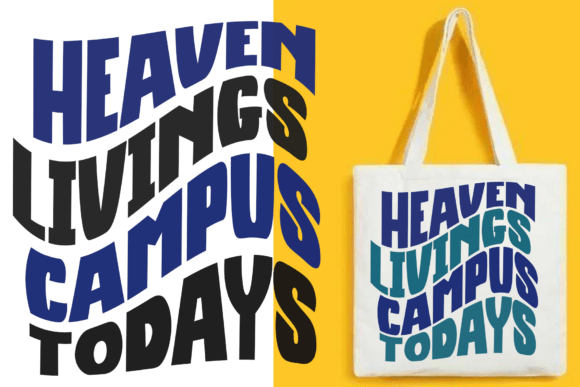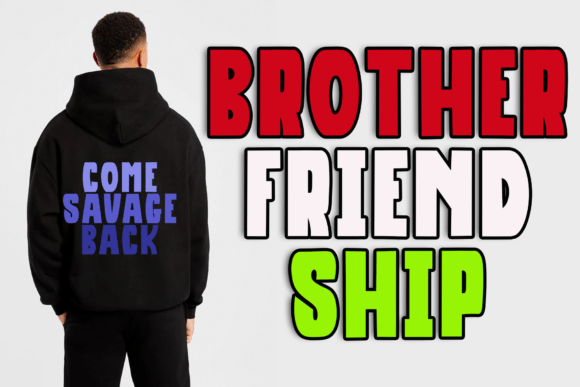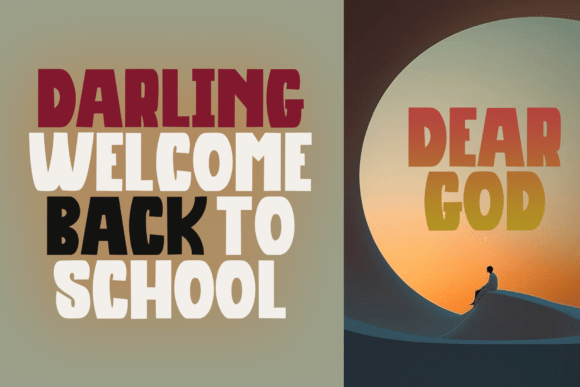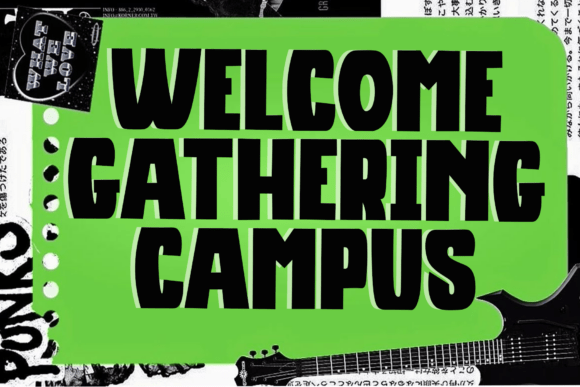
Discover the Charm of Citylight Font: A Perfect Blend of Simplicity and Friendliness
In the world of typography, fonts play a crucial role in conveying messages, expressing emotions, and creating a lasting impression. For designers and crafters, finding the right font can be a daunting task. However, if you’re looking for a font that combines simplicity with a friendly, approachable vibe, look no further than Citylight Font. In this article, we’ll explore the features, benefits, and uses of Citylight Font, and why it’s becoming a popular choice among designers.
What is Citylight Font?
Citylight Font is a casual and neat display font that has been designed to capture the essence of modern handwritten typography with a polished finish. It features clean lines, balanced letterforms, and subtle rounded edges, making it perfect for a wide range of design applications. Whether you’re working on branding, headlines, packaging, or digital content, Citylight Font is an excellent choice.
Key Features of Citylight Font
So, what makes Citylight Font stand out from the rest? Here are some of its key features:
- Clean Lines: Citylight Font features clean lines that give it a crisp and modern look.
- Balanced Letterforms: The font has balanced letterforms that ensure clarity and readability.
- Subtle Rounded Edges: The subtle rounded edges give Citylight Font a friendly and approachable vibe.
- Versatile Style: The font has a versatile style that makes it suitable for a wide range of design applications.
Benefits of Using Citylight Font
Citylight Font offers a range of benefits that make it an excellent choice for designers and crafters. Here are some of the advantages of using Citylight Font:
- Warm and Inviting: Citylight Font adds a warm and inviting touch to any design, making it perfect for creating a friendly and approachable brand image.
- Clarity and Charm: The font delivers clarity and charm in equal measure, making it ideal for headlines, packaging, and digital content.
- Easy to Read: Citylight Font is easy to read, even at small sizes, making it perfect for body text and captions.
- Customizable: The font is highly customizable, allowing you to adjust the size, color, and style to suit your design needs.
Uses of Citylight Font
Citylight Font is a versatile font that can be used in a wide range of design applications. Here are some of the ways you can use Citylight Font:
- Branding: Use Citylight Font to create a friendly and approachable brand image.
- Headlines: The font is perfect for headlines, adding a touch of elegance and sophistication to your design.
- Packaging: Citylight Font is ideal for packaging design, adding a warm and inviting touch to your product.
- Digital Content: The font is perfect for digital content, including social media posts, blog articles, and website headers.
Tips for Using Citylight Font
Here are some tips for using Citylight Font effectively:
- Pair it with Other Fonts: Citylight Font can be paired with other fonts to create a unique and visually appealing design.
- Adjust the Size and Color: Adjust the size and color of the font to suit your design needs.
- Use it Consistently: Use Citylight Font consistently throughout your design to create a cohesive look.
In conclusion, Citylight Font is a casual and neat display font that combines simplicity with a friendly, approachable vibe. With its clean lines, balanced letterforms, and subtle rounded edges, it’s perfect for a wide range of design applications. Whether you’re working on branding, headlines, packaging, or digital content, Citylight Font is an excellent choice. Its warm and inviting touch, clarity, and charm make it a popular choice among designers and crafters.
So, if you’re looking for a font that can add a touch of elegance and sophistication to your design, look no further than Citylight Font. With its versatility, readability, and customizability, it’s an excellent addition to any design project.